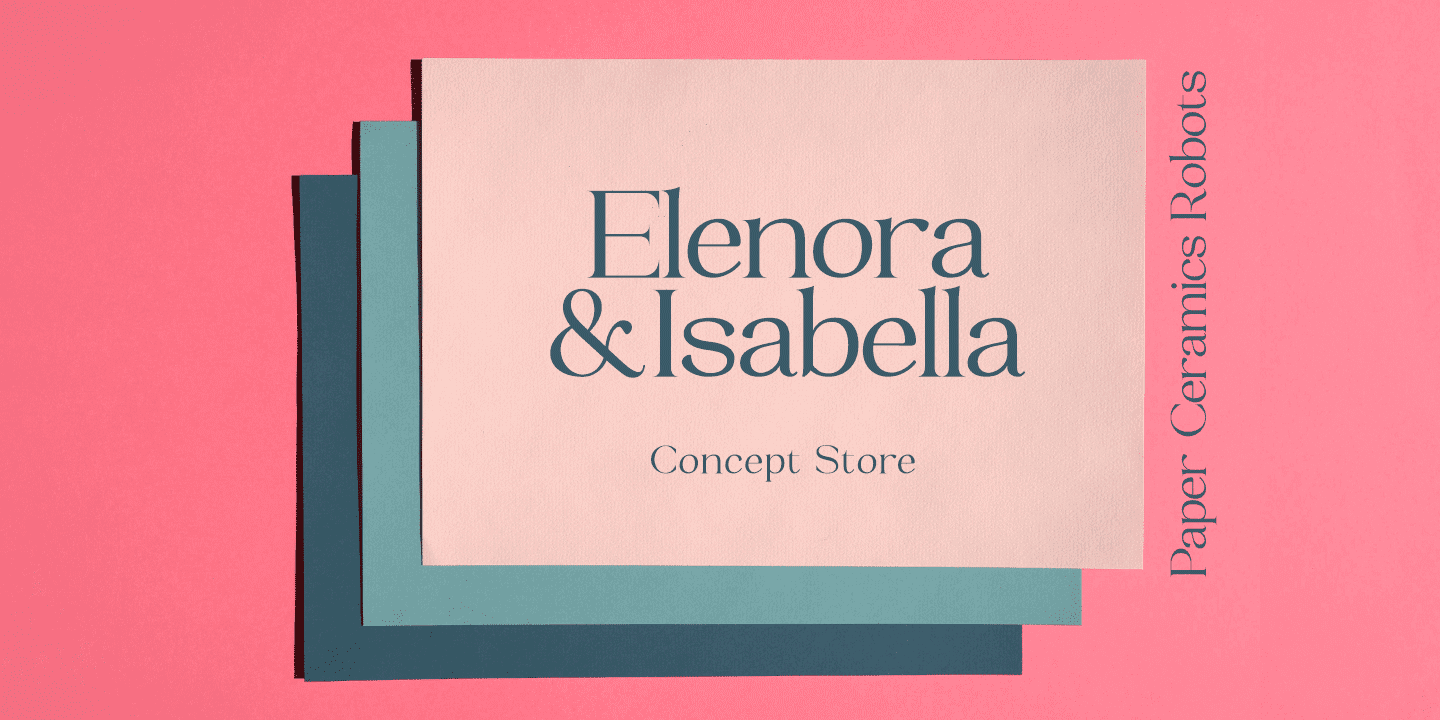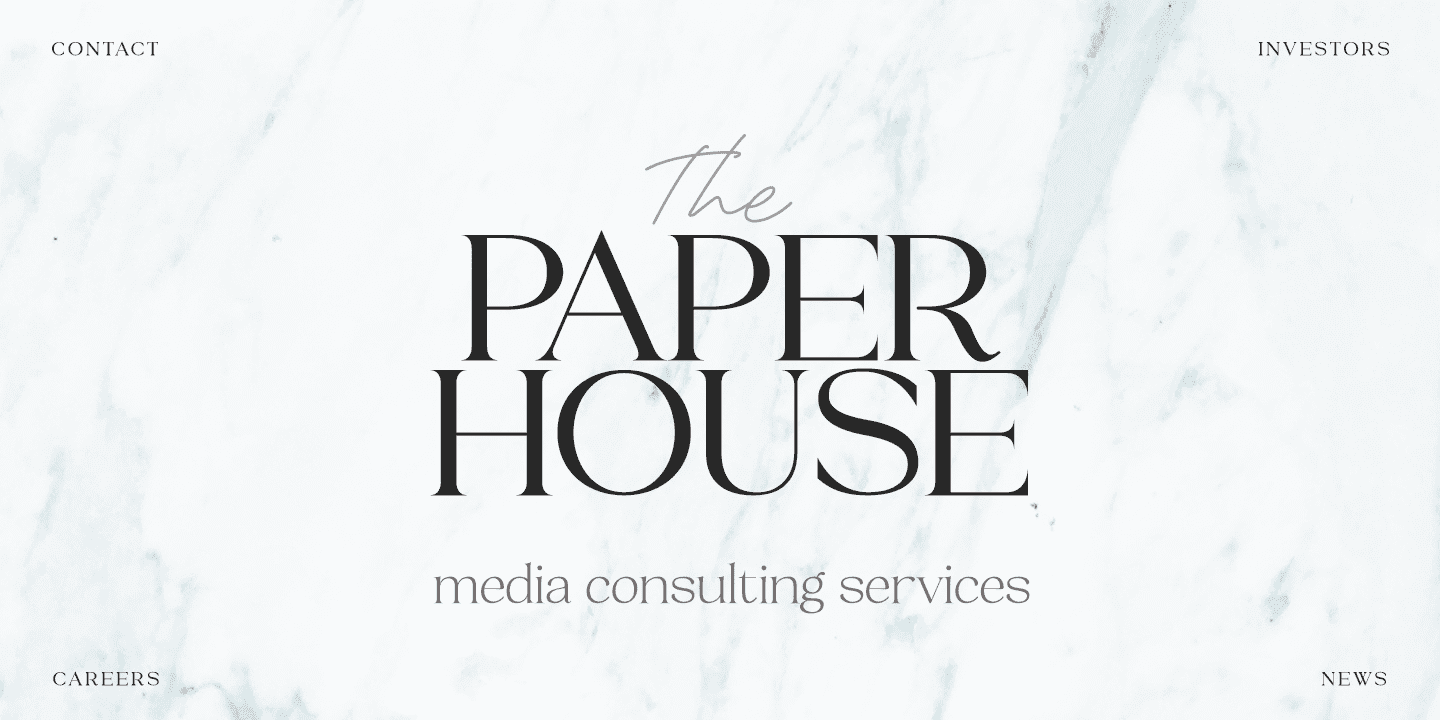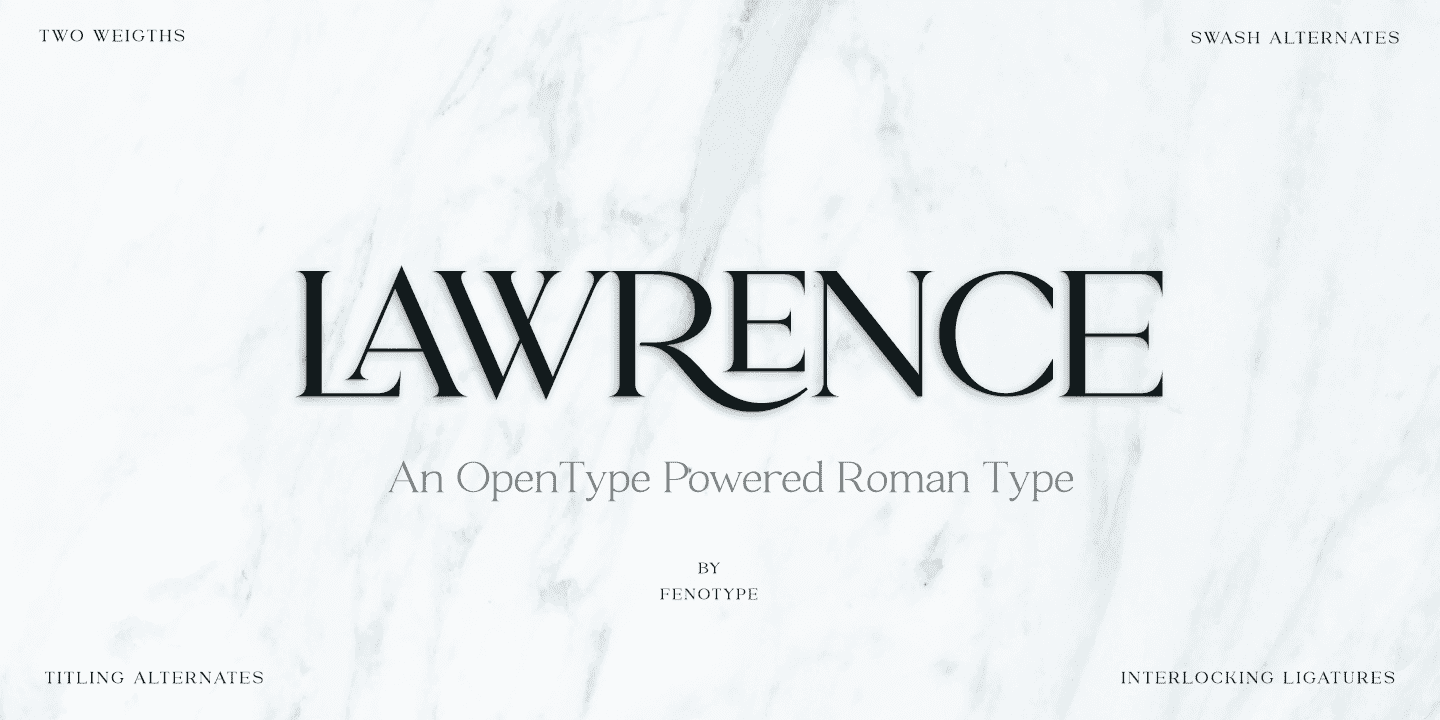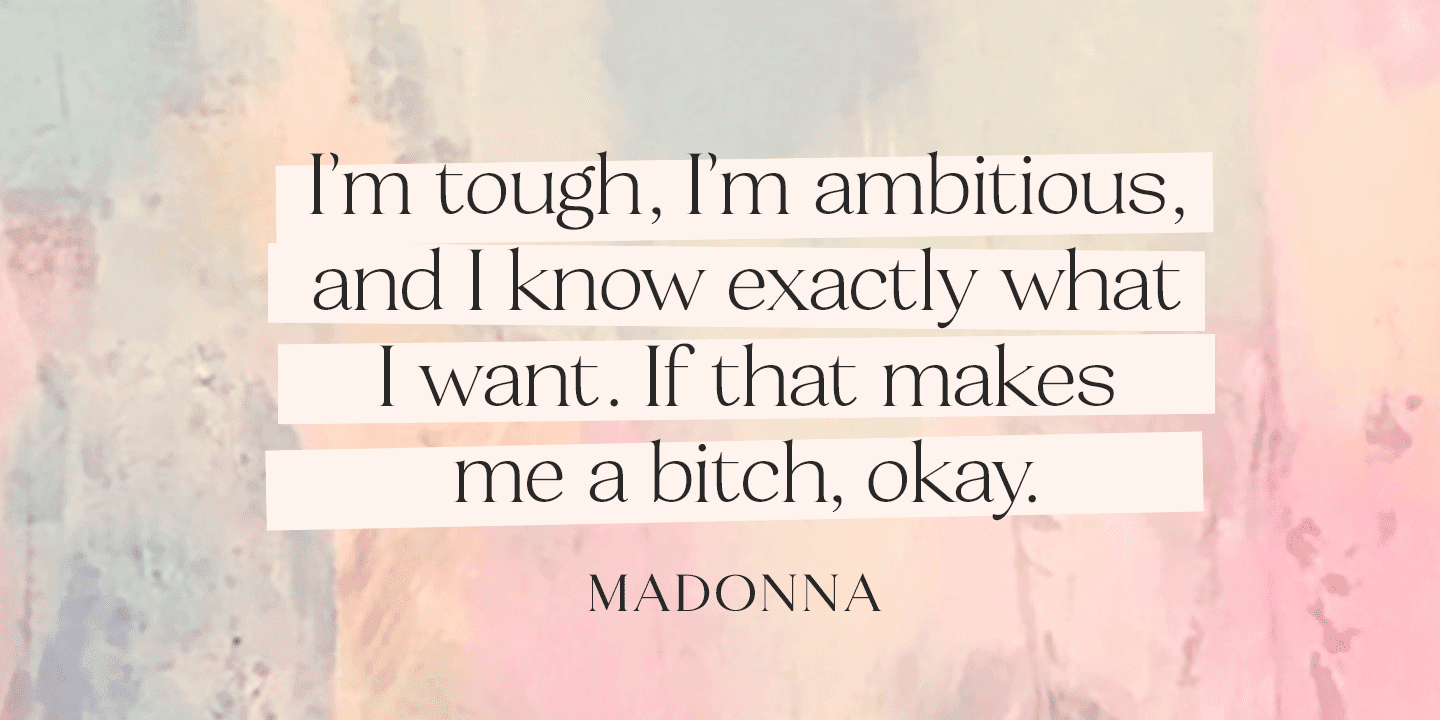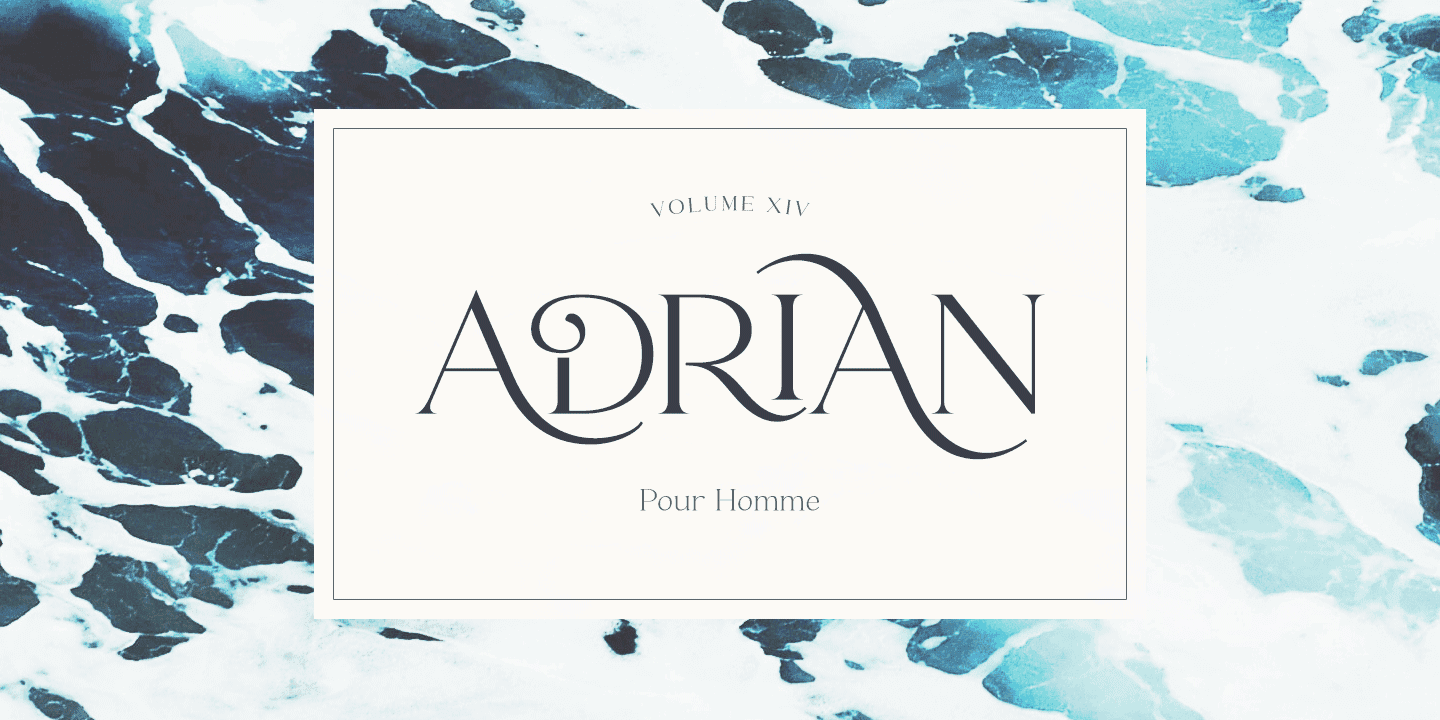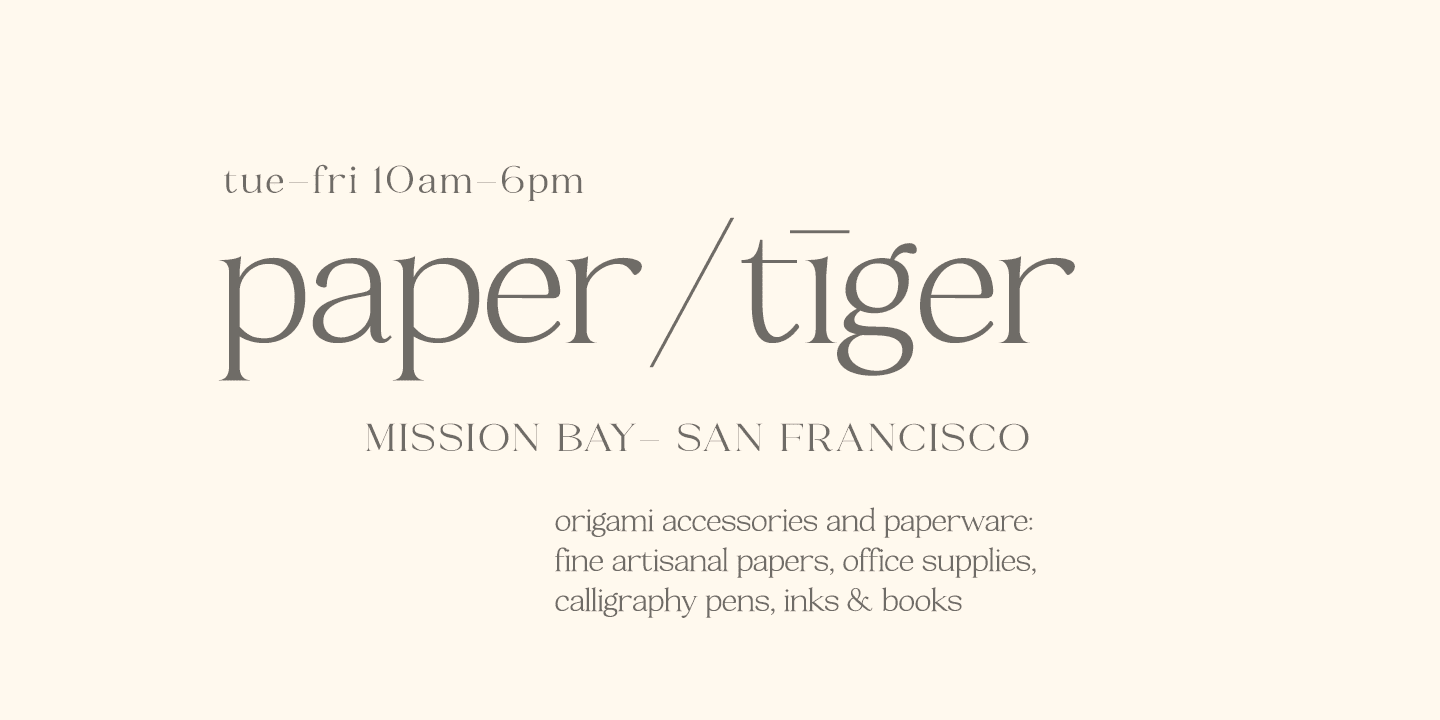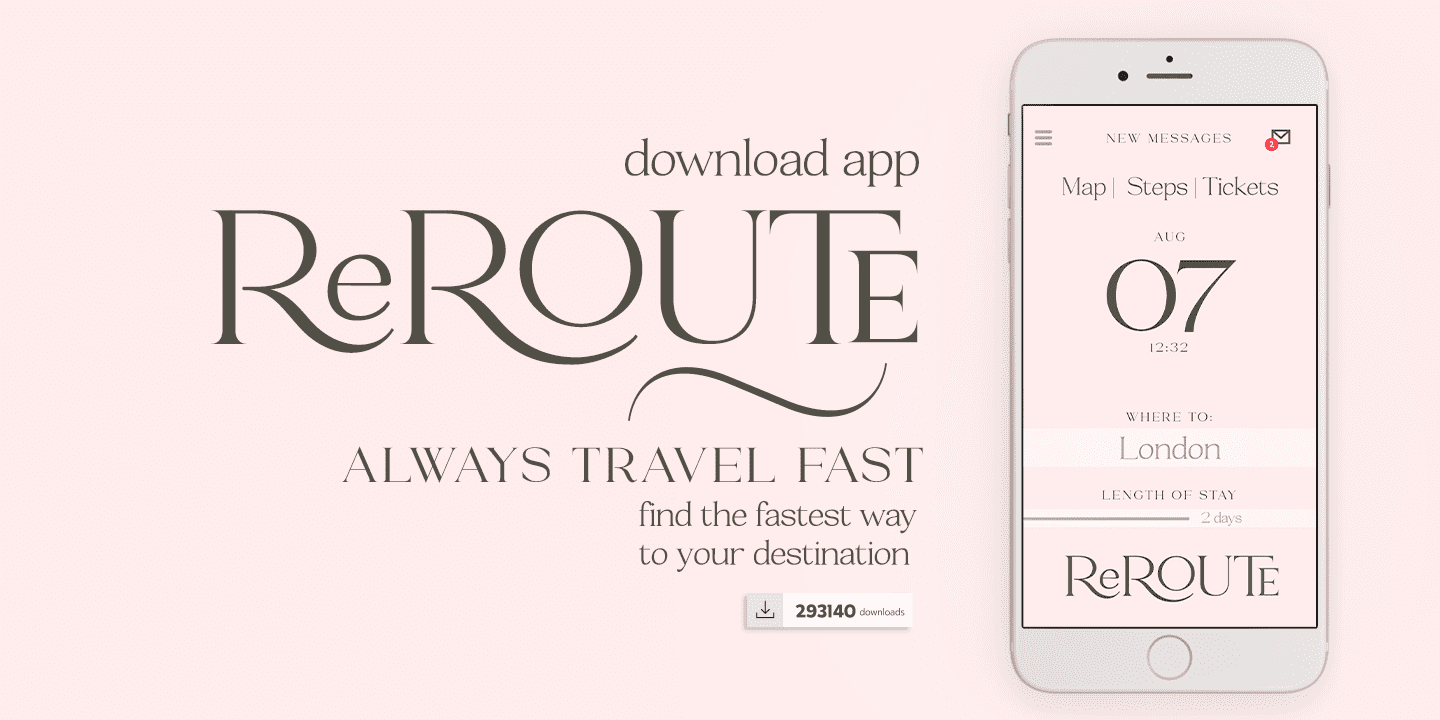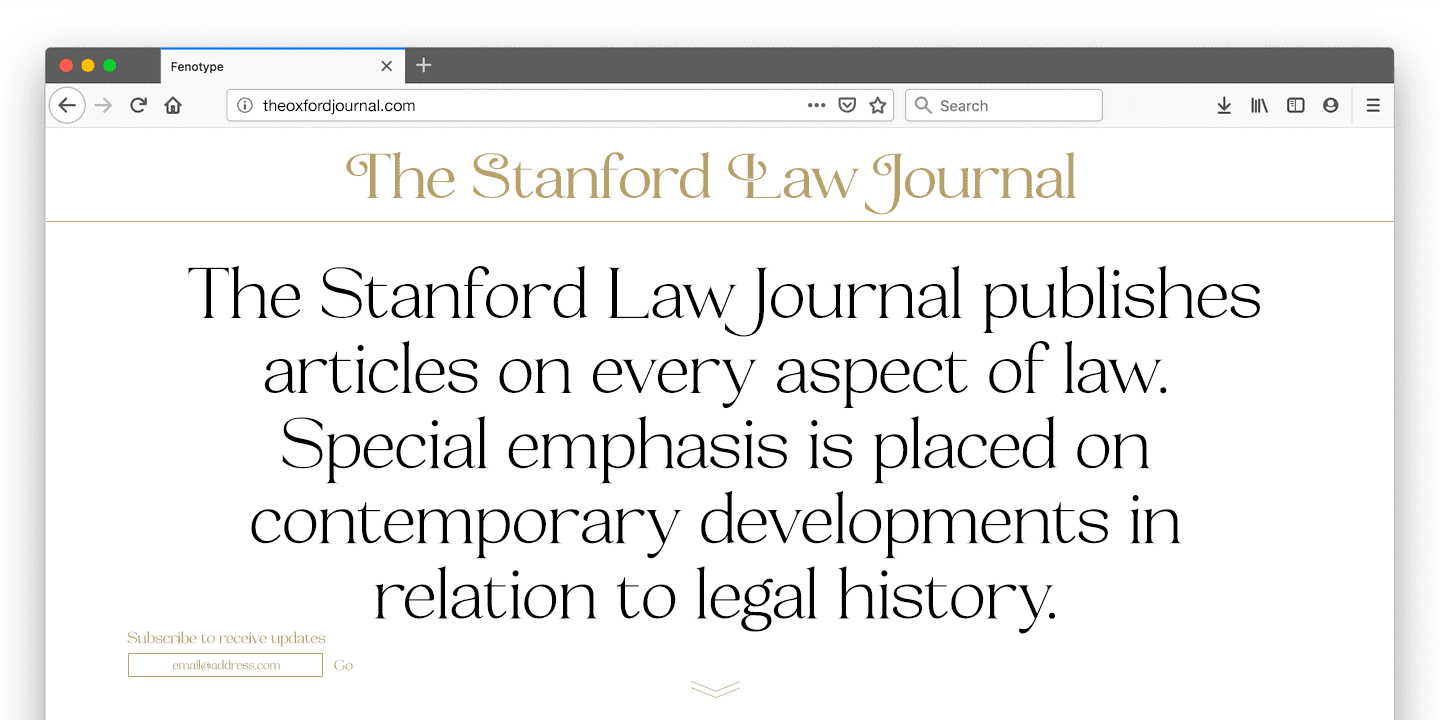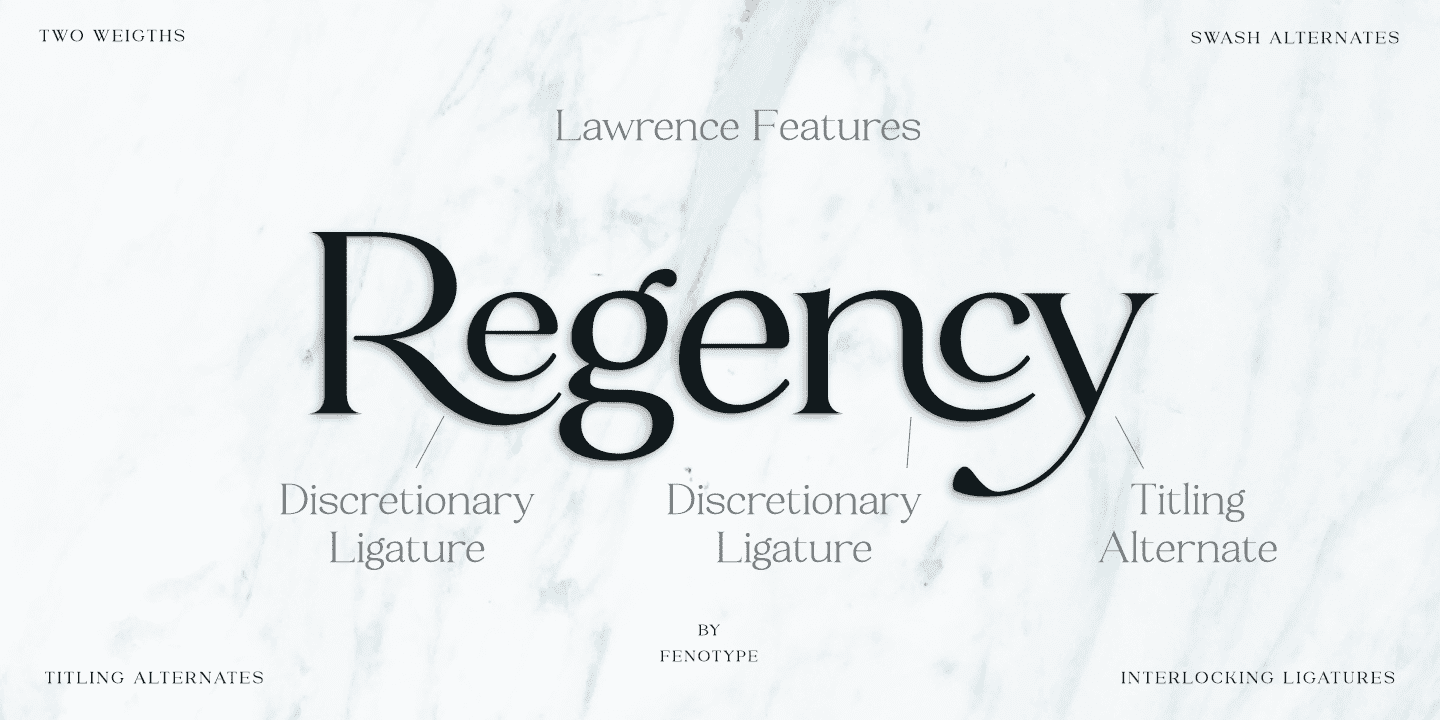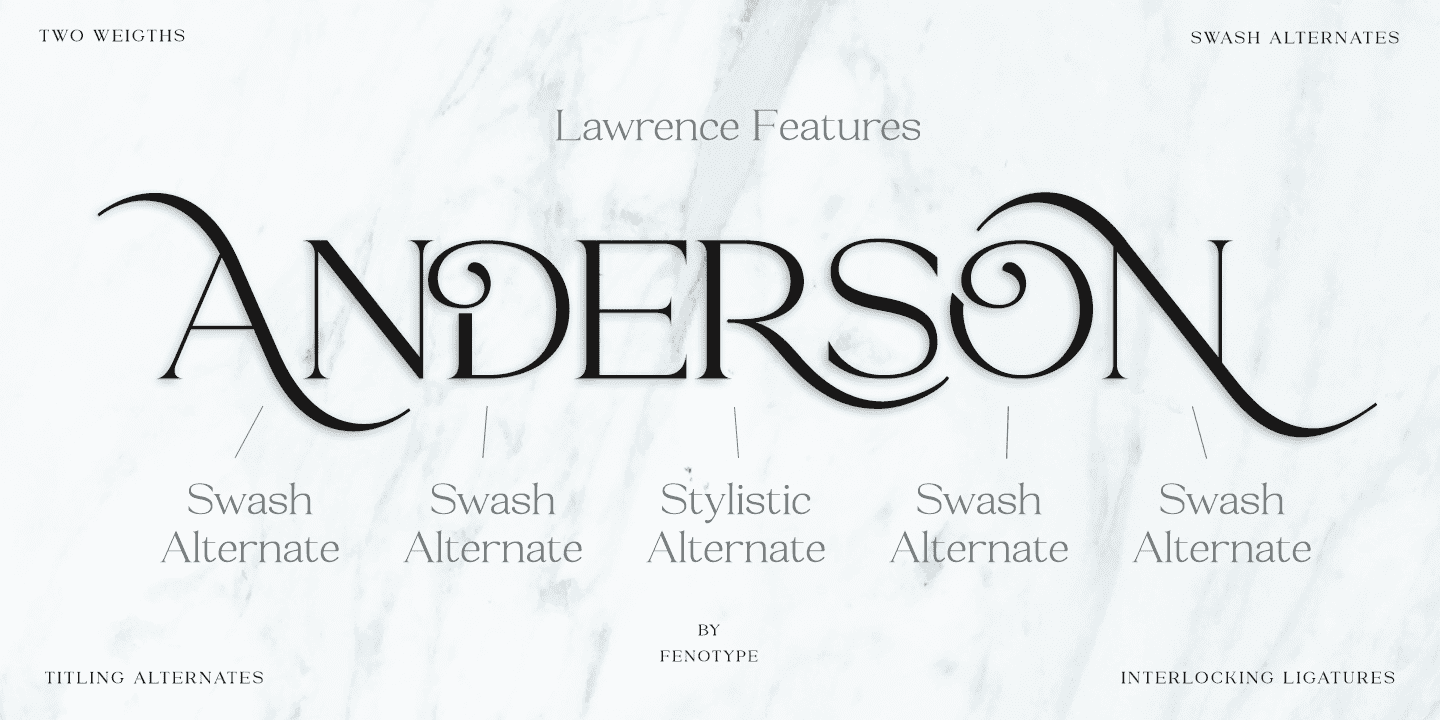
Lawrence is great for fashion, branding, packaging or editorial use.
Lawrence is equipped with 192 OpenType alternates including Swash, Stylistic and Titling Alternates. Lawrence also has interlocking ligatures set in Discretionary Ligatures. These ligatures contain pairs in Uppercase + Uppercase, Uppercase + Lowercase and Lowercase + Lowercase. These Alternates are PUA encoded and can also be accessed from Glyph Palette or Character Map.